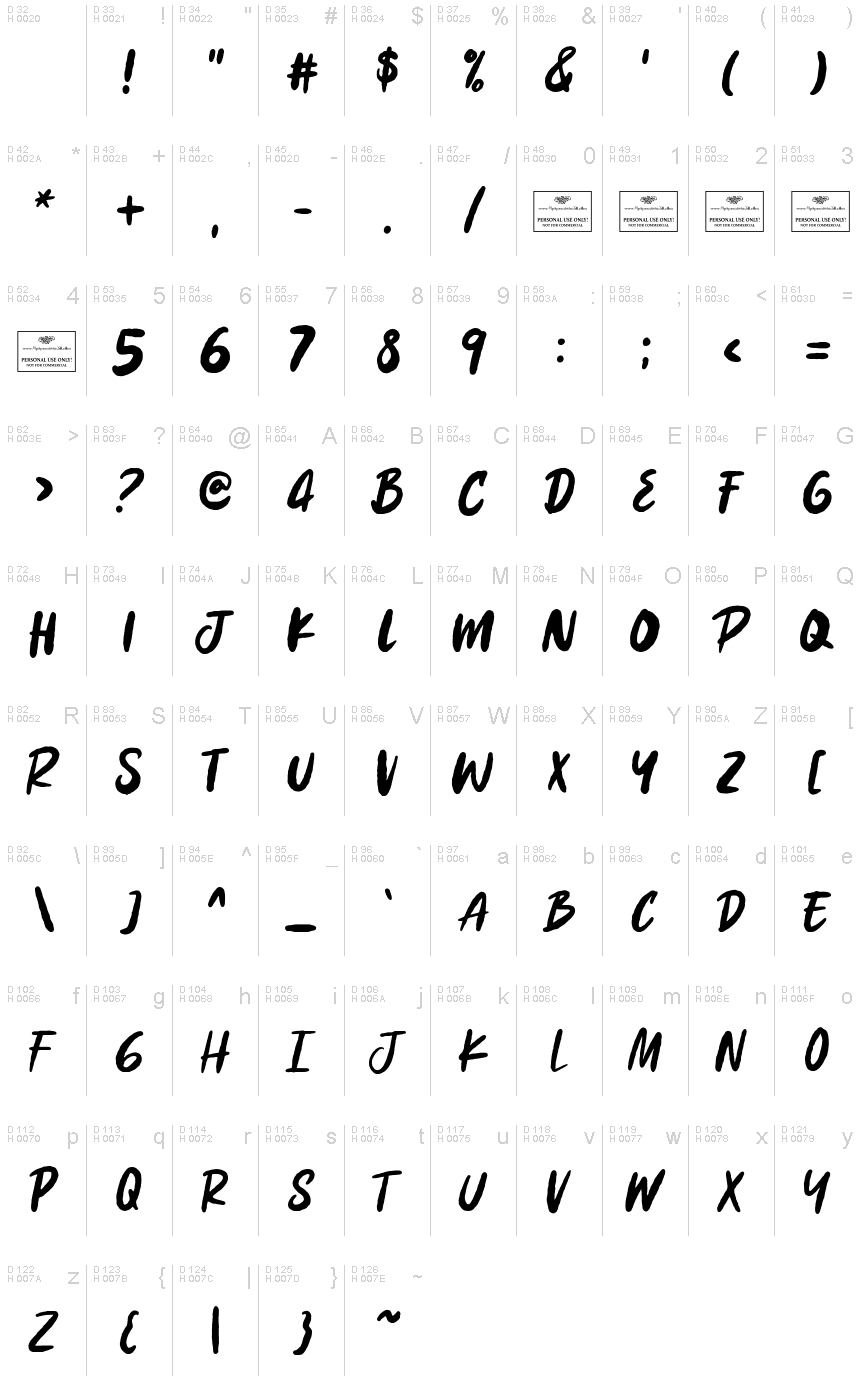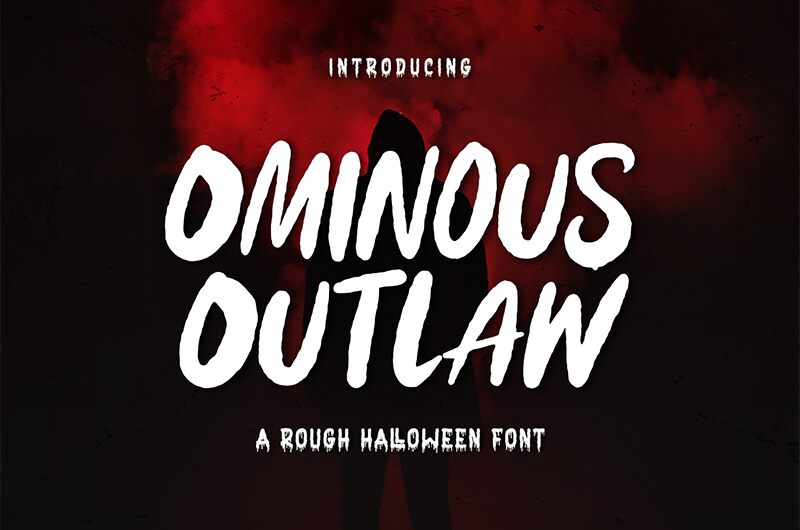
Ominous Outlaw
Ominous Outlaw is a striking display font that exudes an unmistakable air of danger and intrigue. Crafted by the talented designers at Alpaprana Studio, this font boasts a rugged, hand-drawn aesthetic that immediately catches the eye. The irregular, jagged letterforms evoke a sense of raw, untamed power, making Ominous Outlaw an ideal choice for bold, attention-grabbing designs.
This font's versatility shines through its ability to seamlessly transition between various design contexts. From gritty film posters and album covers to edgy branding and packaging, Ominous Outlaw's unique personality can elevate any project with its unapologetic, rebellious charm.